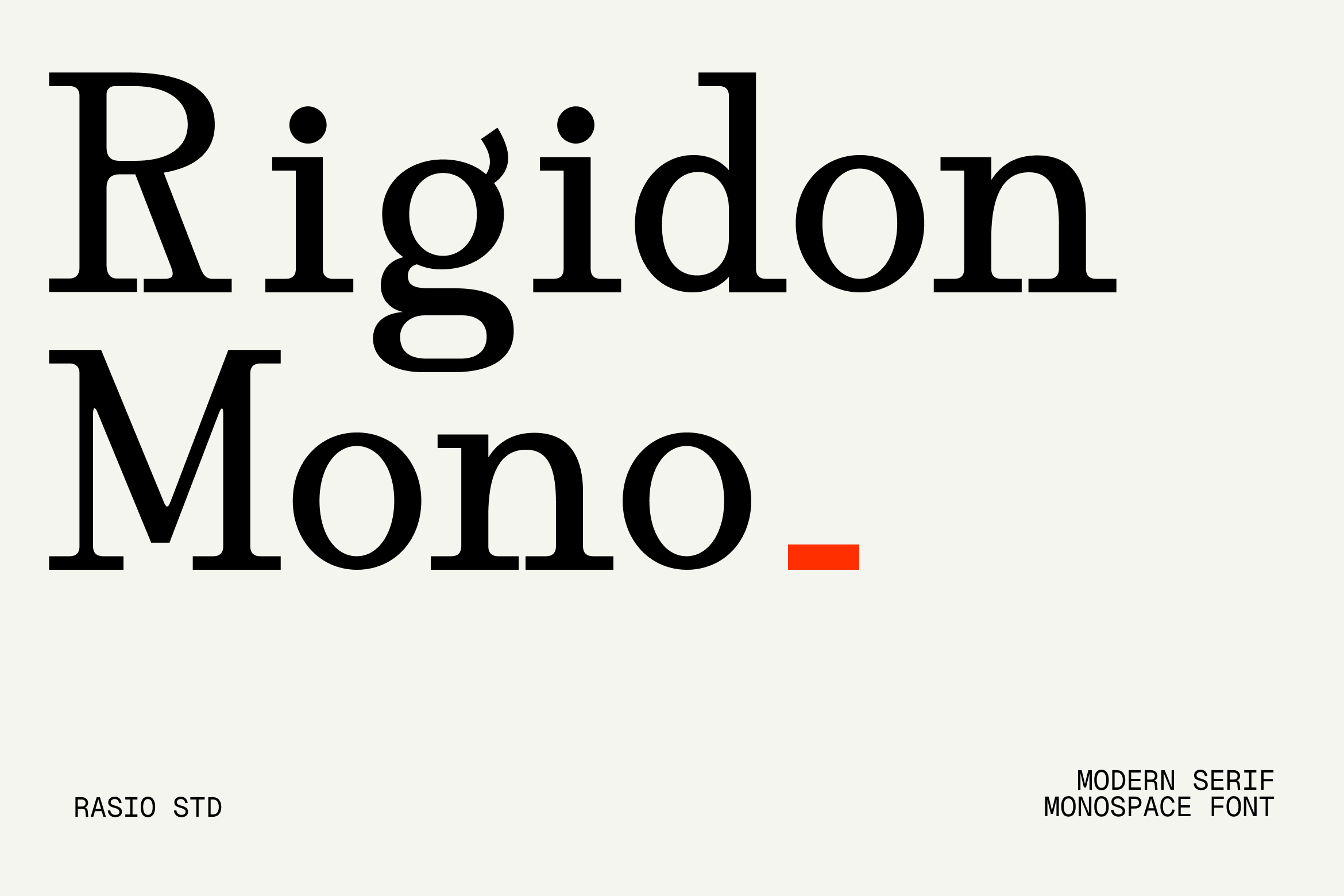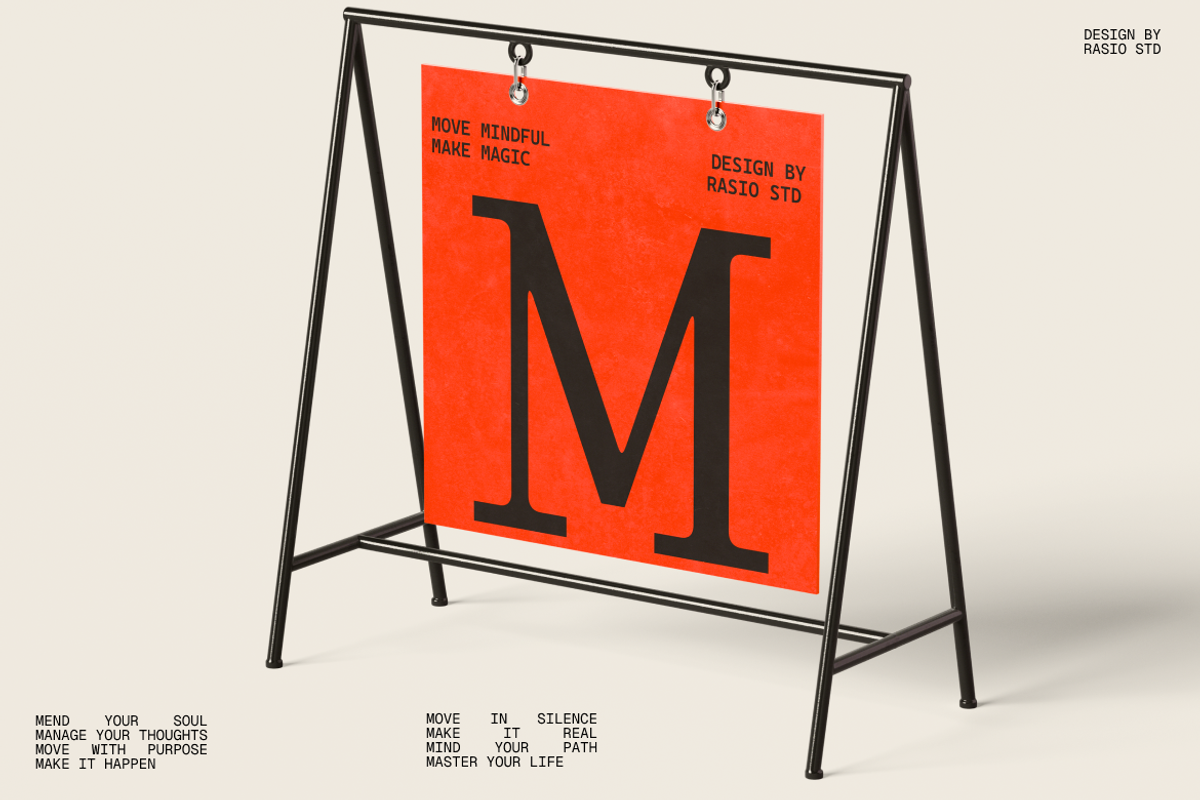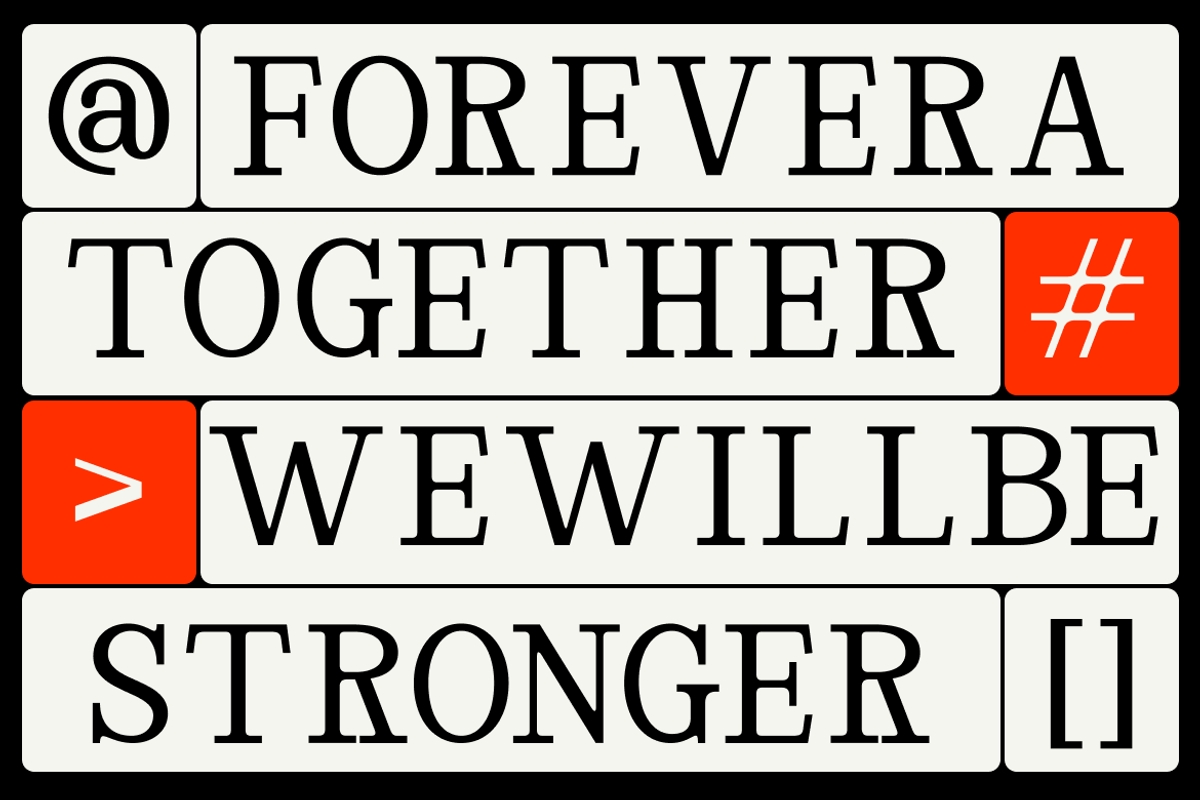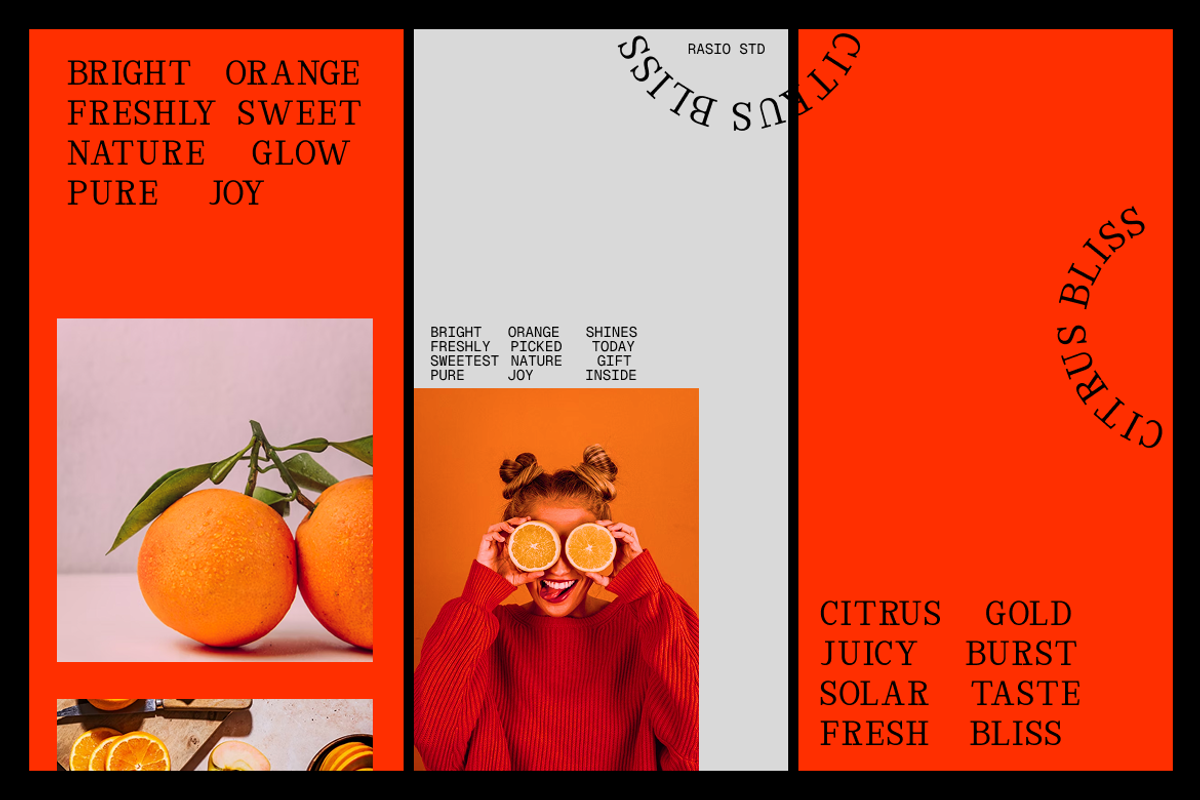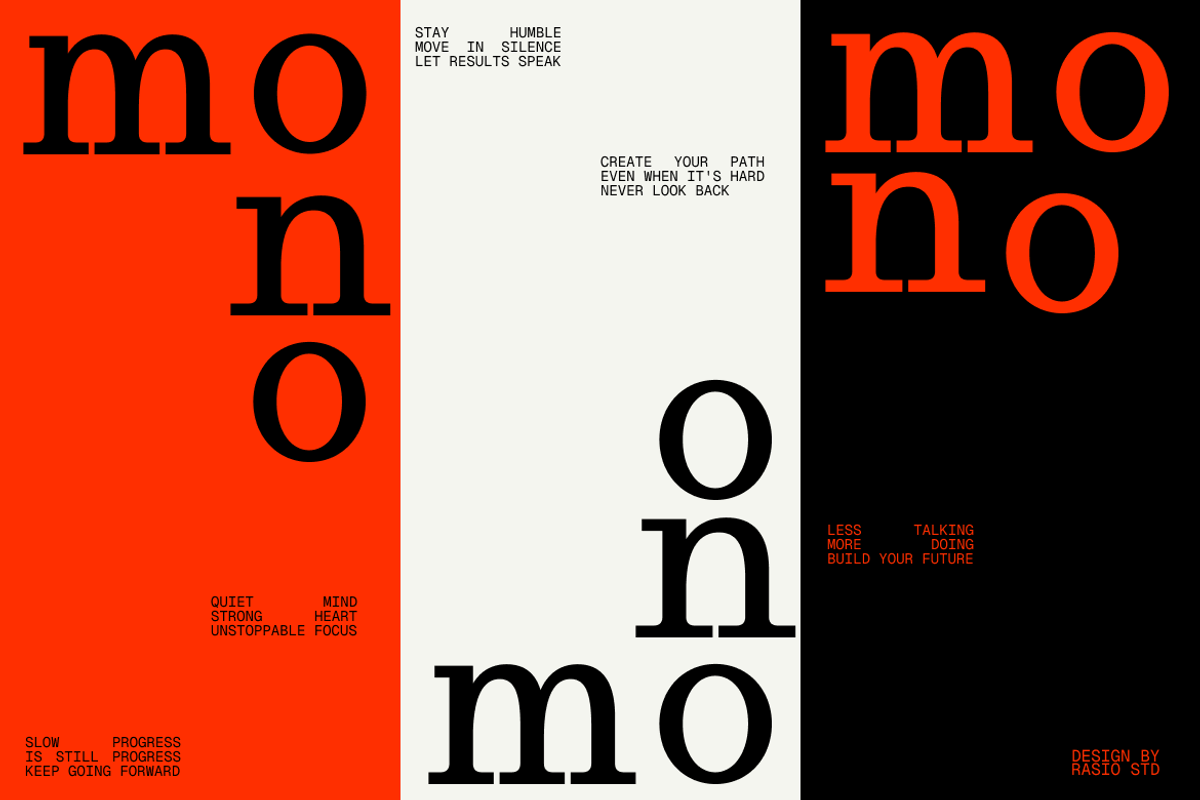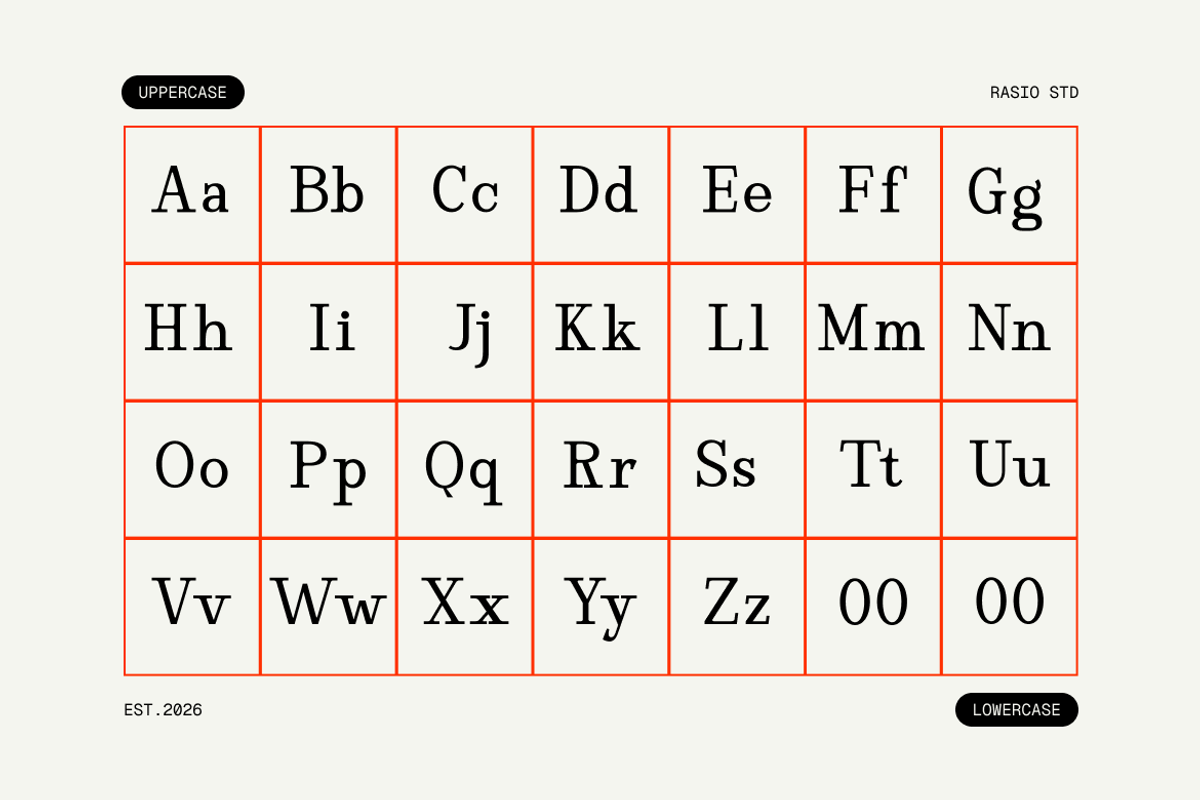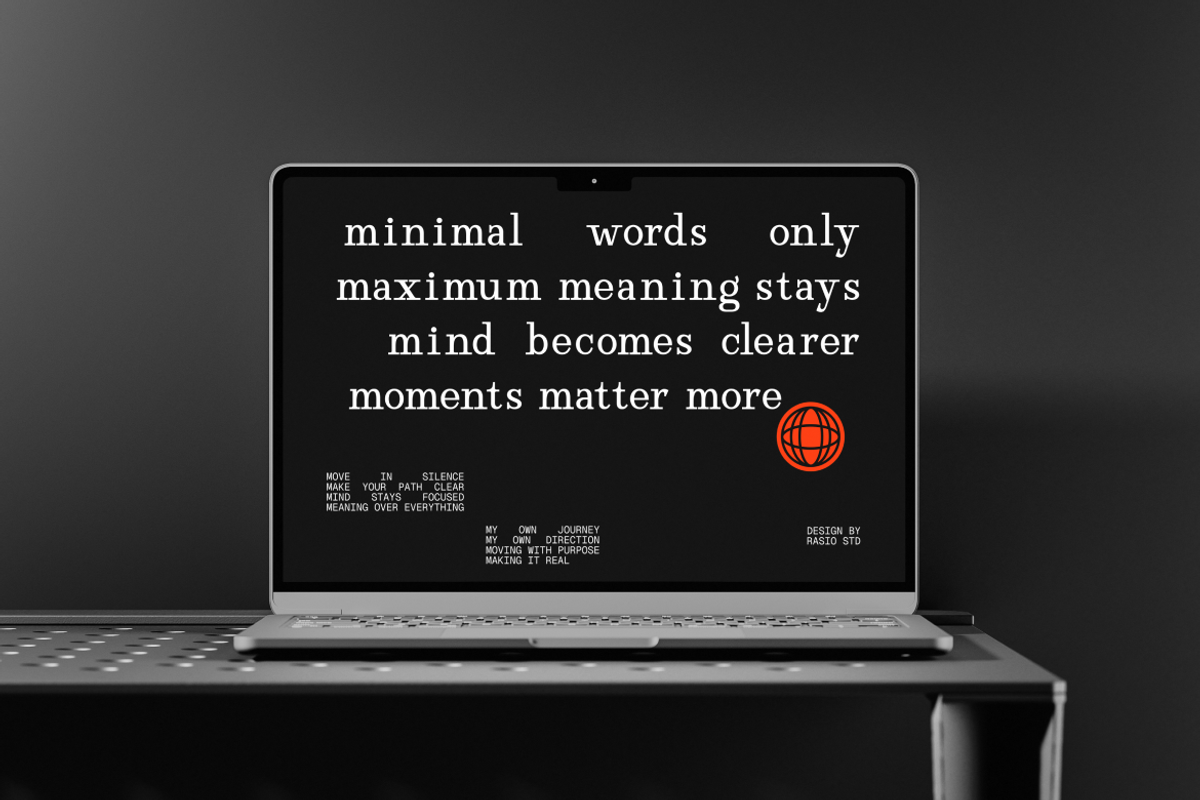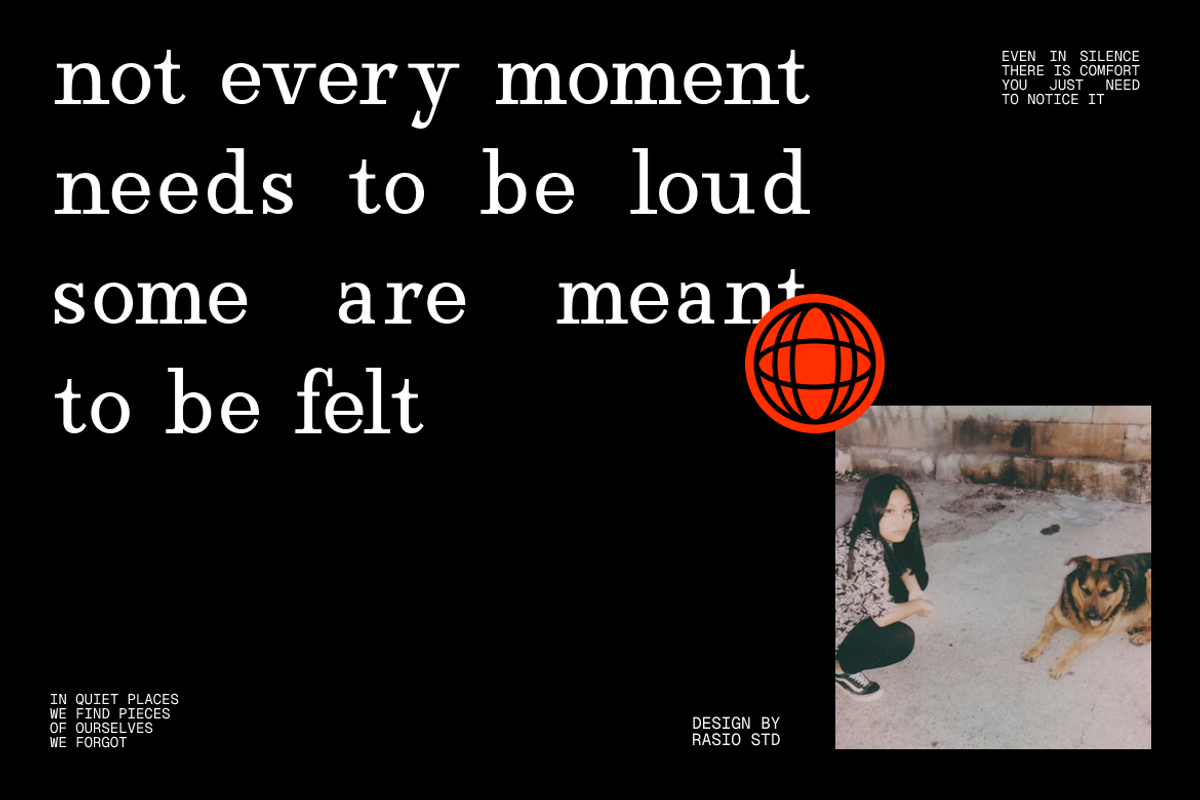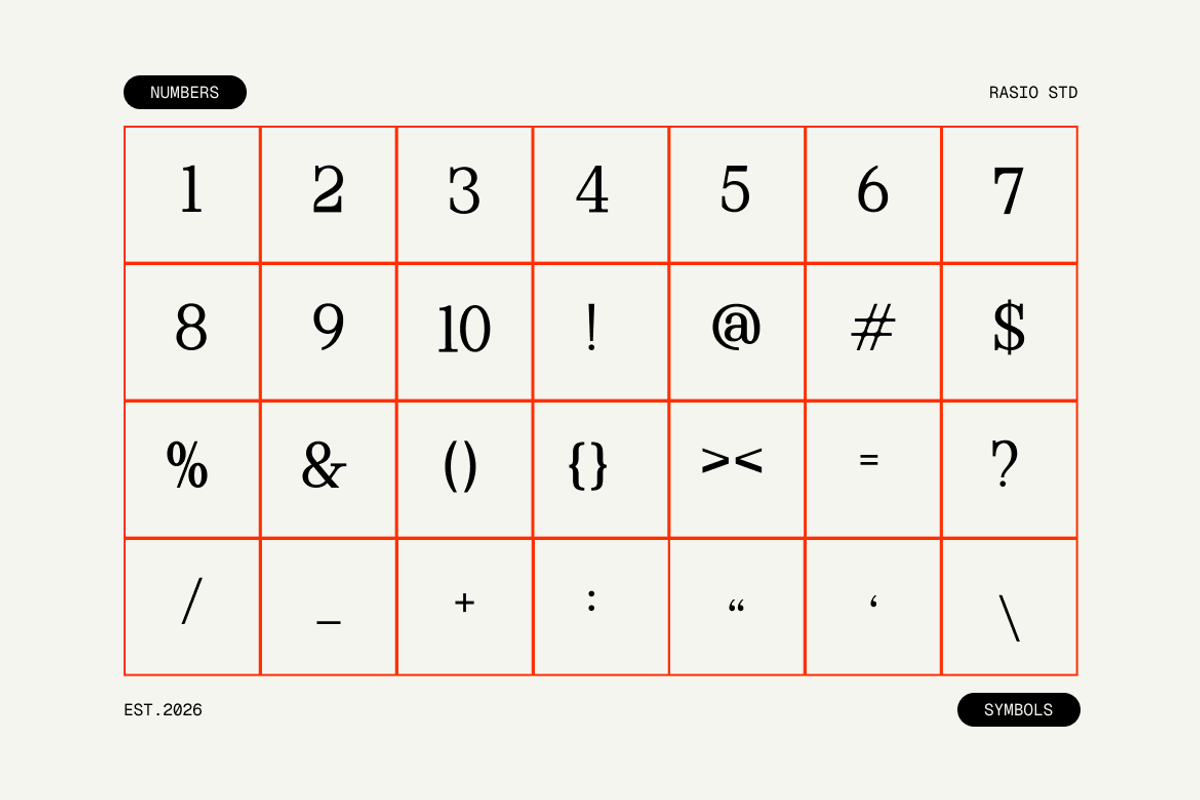
Rigidon Mono Serif Monospace Font
Rigidon is a modern serif monospace typeface that combines classic serif structure with a fixed-width system, creating a unique balance between tradition and technical precision. This font includes full uppercase and lowercase characters, numerals, and punctuation, designed with consistent spacing for coding-inspired layouts and structured compositions. Its sharp serifs and uniform alignment deliver a distinctive editorial and tech-driven aesthetic.
This font is relevant for projects that require a blend of editorial elegance and technical structure, such as coding-themed visuals, tech branding, modern editorial layouts, and experimental typography. Its monospace nature makes it especially suitable for grid-based designs, interface mockups, and contemporary publications that emphasize precision and alignment.
- Modern serif monospaced construction with balanced rhythm
- Fixed-width character system for structured and technical aesthetics
- Sharp serif details combined with clean geometric proportions
- Strong vertical alignment creating a stable and organized layout
- High legibility with clear spacing for editorial and coding-inspired visuals
- Brand identity systems with structured and distinctive typography
- Tech-focused visuals, coding themes, and digital product interfaces
- Editorial layouts, magazines, and modern publishing design
- Poster design and typographic compositions with strong character
- Social media graphics and branding assets with a bold, system-driven look